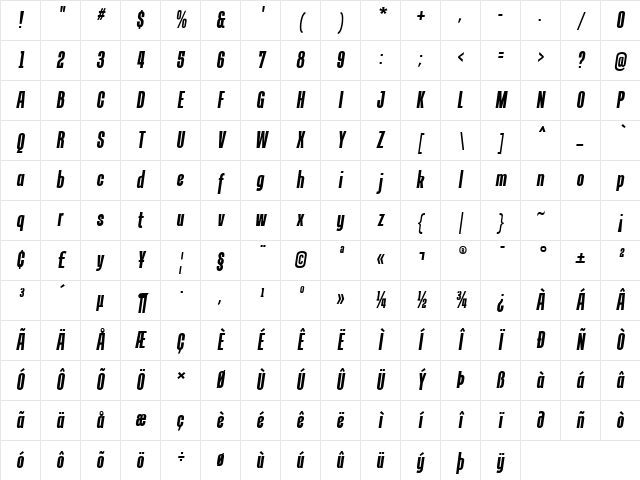
Tandelle Bold Italic Free Font
Tandelle Bold Italic
Design Context for Tandelle
Tandelle is a composed and adaptable typeface that performs quietly and consistently across a wide range of design contexts. The slanted form adds forward momentum and visual energy. Its bold stroke weight gives it real presence on the page.
Pro Tip: Use Tandelle for emphasis, pull quotes, and subheadings where its slanted energy can add rhythm to the layout.